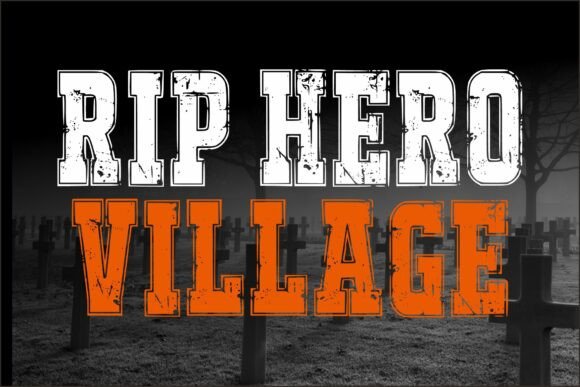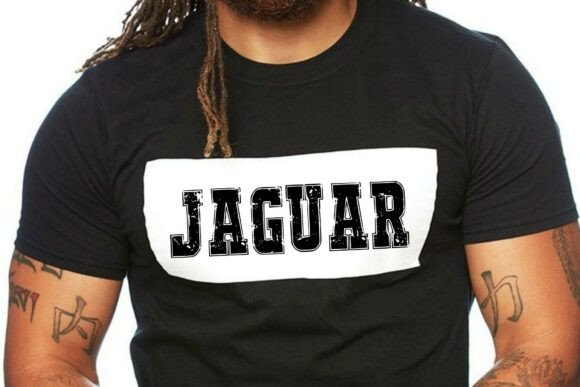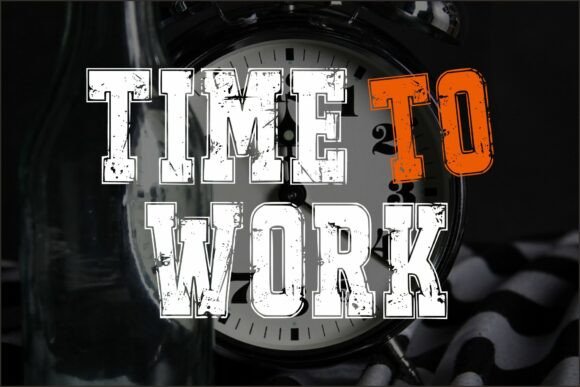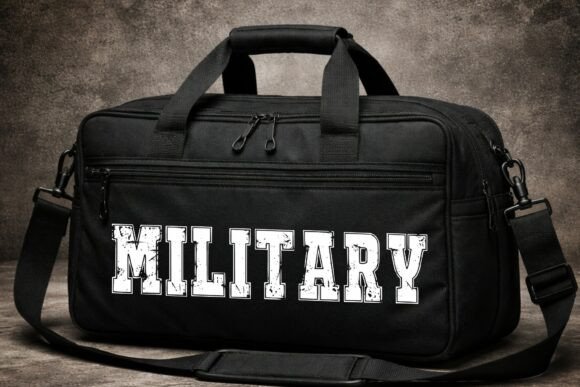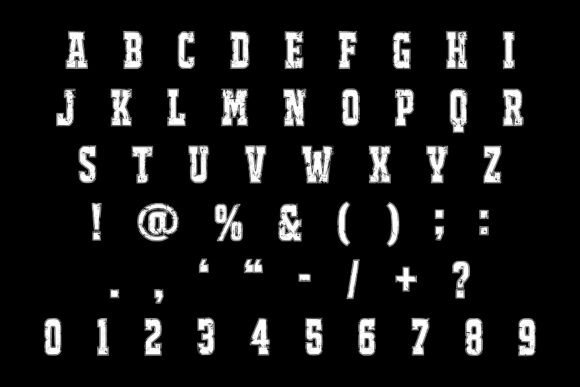
Introducing Force Safety Font: Unleash a Tough and Commanding Presence in Your Designs
Are you a designer or crafter looking to add a bold and rugged touch to your typography? Look no further than the Force Safety Font, a distressed display font that exudes a strong slab-serif structure with a rugged grunge texture. This font is perfect for creating impactful designs that demand attention, featuring a vintage military or industrial aesthetic that’s sure to leave a lasting impression.
Key Features of Force Safety Font
- Bold Distressed Display Font: Force Safety Font boasts a bold and distressed design that’s perfect for creating eye-catching typography.
- Strong Slab-Serif Structure: The font features a sturdy slab-serif structure that adds a sense of ruggedness and industrial charm to your designs.
- Rugged Grunge Texture: The grunge texture adds a layer of depth and visual interest to the font, giving it a worn and weathered look.
Force Safety Font is an incredibly versatile font that can be used for a wide range of design projects, including:
- Logos: Create a bold and memorable logo that makes a statement with Force Safety Font.
- Posters: Design eye-catching posters that grab attention with this powerful font.
- Apparel Designs: Add a rugged touch to your t-shirt designs, hoodies, and other apparel with Force Safety Font.
- Merchandise: Create promotional products that stand out from the crowd, such as stickers, decals, and more.
- YouTube Thumbnails: Craft thumbnails that demand attention and entice viewers to click on your video.
- Gaming Titles: Add a bold and edgy touch to your gaming titles and branding.
- Promotional Materials: Use Force Safety Font to create promotional materials that exude a sense of toughness and reliability.
Why Choose Force Safety Font?
So why should you choose Force Safety Font for your design projects? Here are just a few reasons:
- Instant Recognition: The bold and distressed design of Force Safety Font ensures instant recognition and attention.
- Versatility: This font can be used for a wide range of design projects, from logos and posters to apparel and merchandise.
- Unique Aesthetic: The vintage military or industrial aesthetic of Force Safety Font sets it apart from other fonts and adds a touch of rugged charm to your designs.
- Ease of Use: Force Safety Font is easy to use and pairs well with a variety of other fonts, making it simple to incorporate into your design workflow.
Tips for Using Force Safety Font
Here are a few tips for getting the most out of Force Safety Font:
- Pair with Contrasting Fonts: Pair Force Safety Font with contrasting fonts to create visual interest and add depth to your designs.
- Experiment with Colors: Try out different color schemes to find the perfect combination that complements the rugged aesthetic of Force Safety Font.
- Use for Headlines and Titles: Force Safety Font is perfect for headlines and titles, but can also be used for body text in larger sizes.